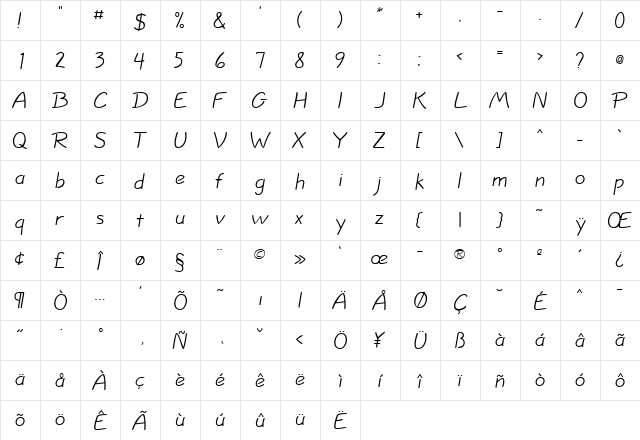
JottFLF-Casual.67 67
Design Context for JottFLF-Casual.67 Typeface
JottFLF-Casual.67 offers clean, dependable letterforms without strong stylistic allegiance, making it a practical choice for designers who need flexibility.